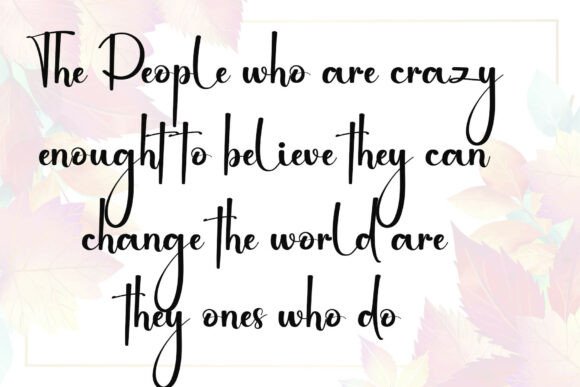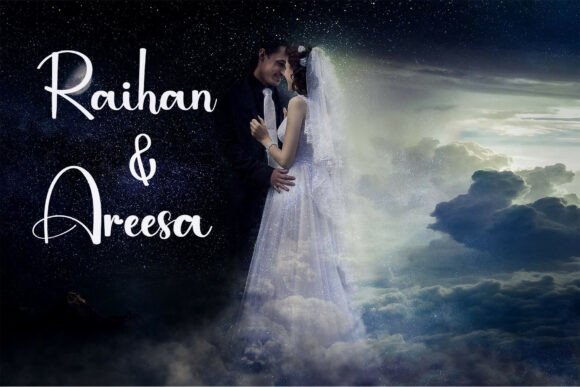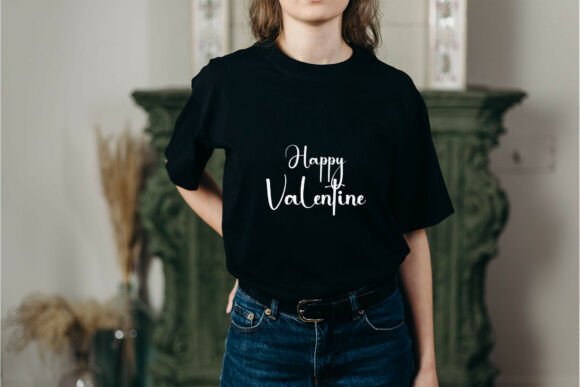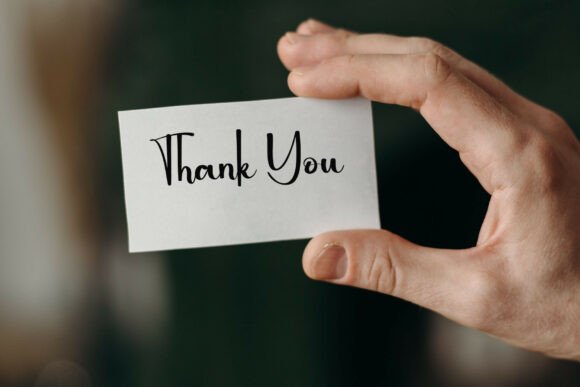
Adding a Touch of Elegance to Your Designs
There’s something magical about the moment when a design comes together. The perfect combination of colors, the precise placement of elements, and the font that ties it all together. For me, it’s the moment when I know I’ve found the perfect font to elevate my design from good to great.
That’s where Background Signature Font comes in – a beautiful, handwritten font that exudes a timeless classic charm. Inspired by the art of calligraphy, this font adds a touch of elegance and sophistication to any design project. Whether you’re creating a wedding invitation, a brand identity, or a product label, Background Signature Font is the perfect choice to make your design stand out.
As a designer, you know how important it is to have a versatile font that can adapt to any project. Background Signature Font is that font – it’s versatile, stylish, and easy to use. With its impeccable form and contemporary atmosphere, it’s a valuable addition to any designer’s toolkit.
Background Signature Font Key Features
- Font Family: A unique blend of elegant and modern script fonts, designed to resemble a handwritten signature.
- Unique Characteristics: Features subtle texture and shading effects, giving it a distinctive, hand-crafted look.
Background Signature Font Review
I’ve had the chance to work with the Background Signature Font, and I must say it’s an interesting choice. Here are some things that stand out:
- ✨ Unique aesthetic: The font’s design is quite distinctive, with a blend of modern and vintage elements that can add a touch of personality to any design.
- ✨ Great for creative projects: The Background Signature Font is perfect for projects that need a bit of flair, such as branding, packaging, or editorial work.
- ⚠️ Limited flexibility: The font’s design is quite bold and attention-grabbing, which can make it difficult to use in situations where subtlety is required.
Overall, the Background Signature Font is a great choice for designers who want to add a bit of personality to their work. While it may not be suitable for every project, it’s definitely worth considering for creative endeavors. With a bit of caution and planning, it can be a valuable addition to any designer’s toolkit.
Experiment with different font sizes, colors, and styles to create a unique look.
Use the Background Signature Font in combination with other design elements to create a cohesive visual identity.